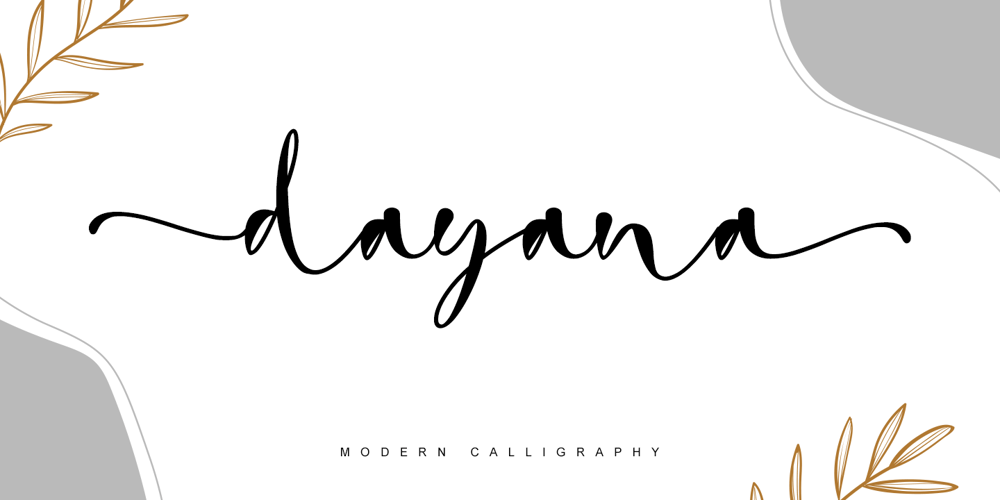
Dayana
Dayana font
Dayana Font Family was designed by Stefani Tri Rosa Setiati Christiana and published by Stefani Letter. Dayana contains 2 styles and family package options. dayana is a lovely and delicate handwritten font. It looks gorgeous on wedding invitations, thank you cards, quotes, greeting cards, logos, business cards, and every other design which needs a handwritten touch, and much more! It features a varying baseline, smooth lines, gorgeous glyphs, and stunning alternates.